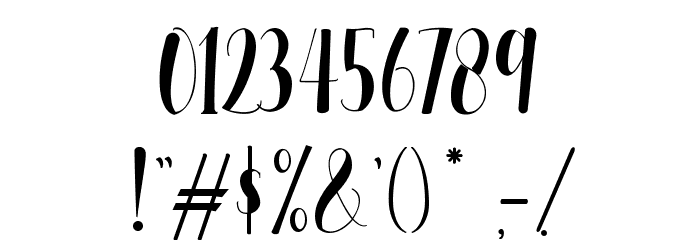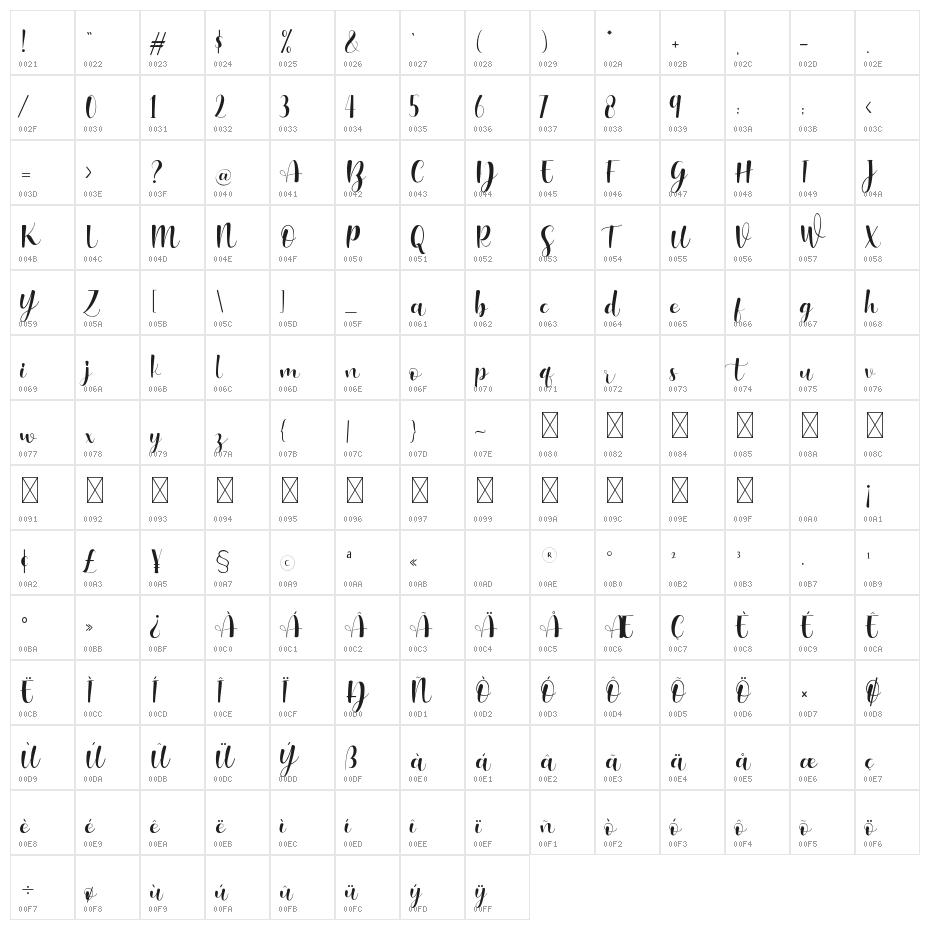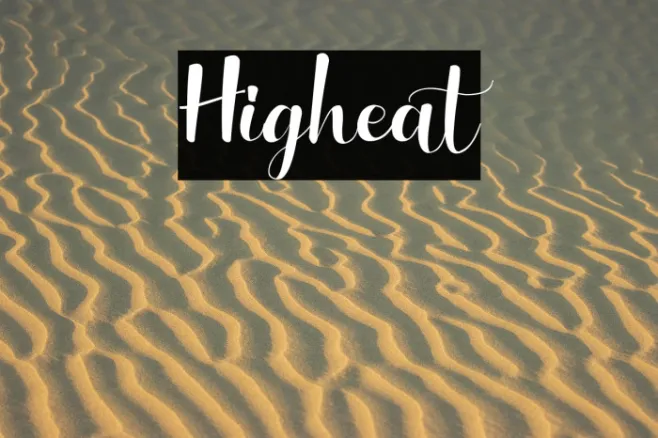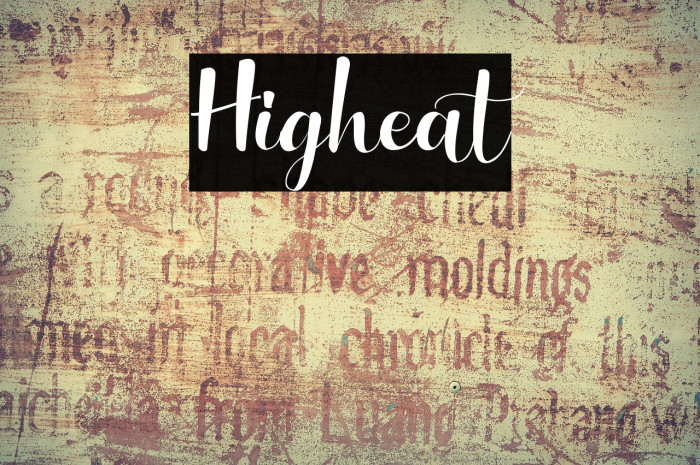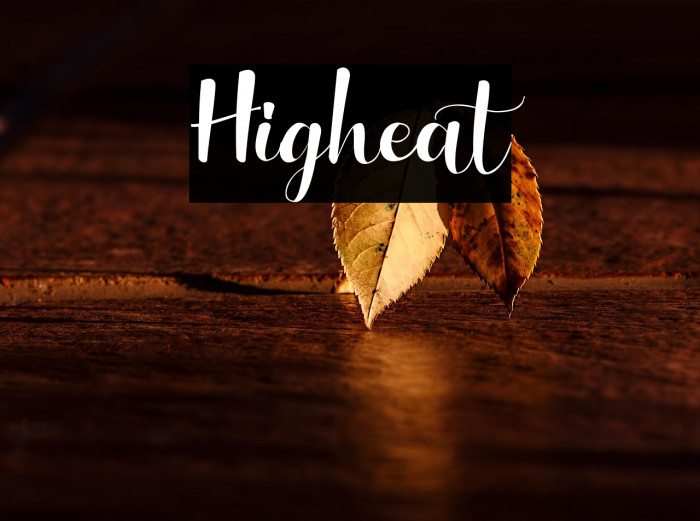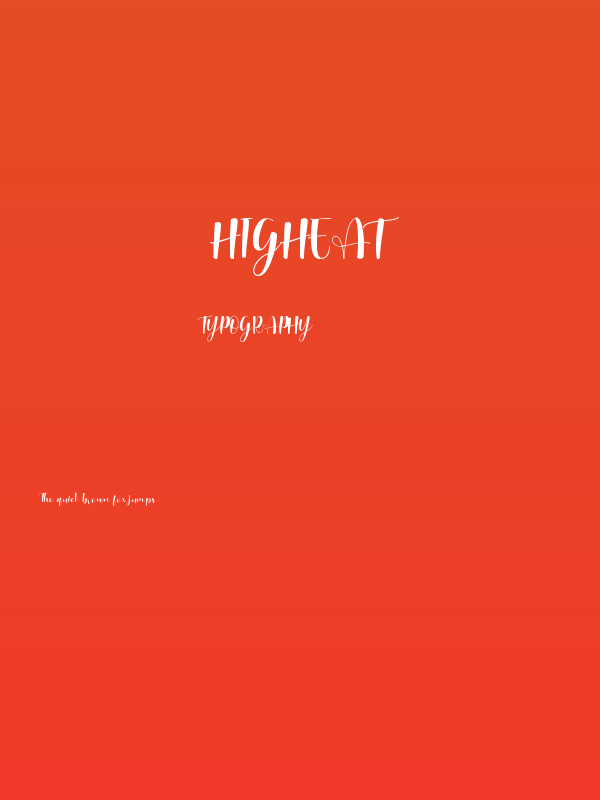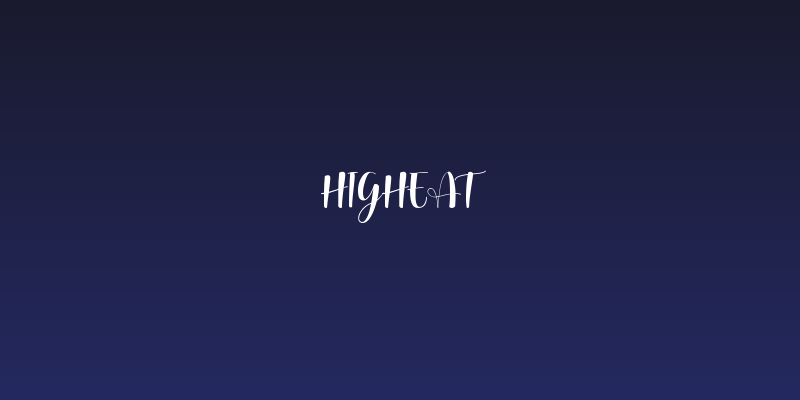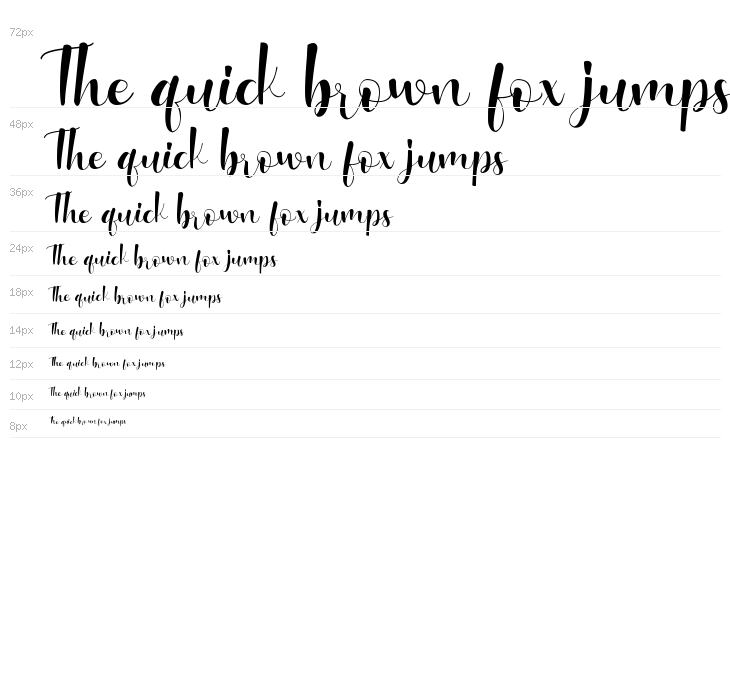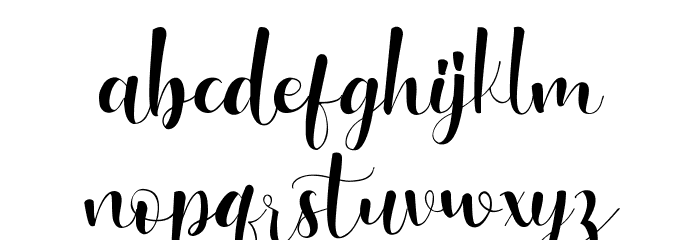
Higheat Font
Higheat Description
This font features an elegant and flowing script style, characterized by its smooth, cursive strokes and artistic flair. The uppercase letters are bold and expressive, with a distinctive loop and flourish that adds a touch of sophistication. The lowercase letters maintain a consistent style, offering a harmonious blend of curves and lines. Numbers and special characters are designed to complement the overall aesthetic, ensuring a cohesive look across all elements. The font's artistic nature makes it ideal for creative projects that require a personal touch.